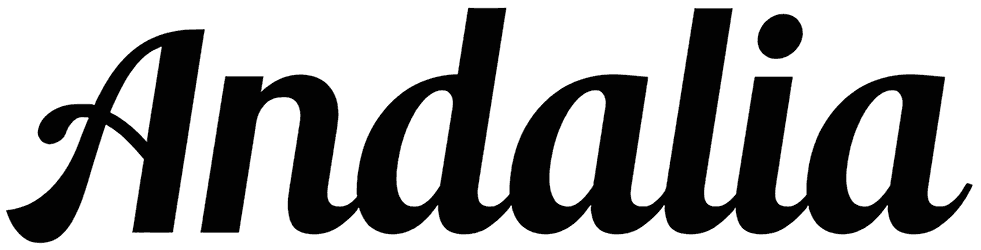
Andalia Font
Looking for a modern way to do something retro without being too obvious? Well, you might just as well ask us for Andalia. Doubt if there’s anything unclear about why it’s so popular, maybe even more than other swash fonts around.
It just looks like it’s made to impress people as an invitation font, and there’s no better way to utilize that except turning it into signs for apparel boutiques, jewelry stores, libraries, shoe stores, or maybe even a golf club.